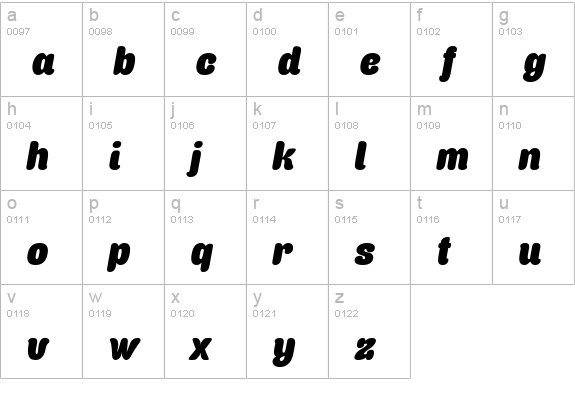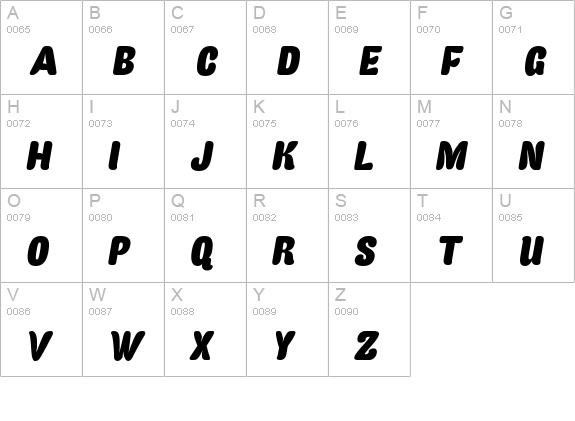
Caprica Sans It Personal Use Font Details
Caprica Sans It Personal Use is a versatile and stylish font that is perfect for adding a touch of elegance and sophistication to any creative project. With its clean lines and modern design, this font is sure to make a statement. Whether you're designing a logo, creating a website, or working on a branding project, Caprica Sans It Personal Use will elevate your work to the next level. Its sleek and professional look is suitable for a wide range of applications, from business cards to social media graphics. One of the best things about Caprica Sans It Personal Use is that it is free. Yes, you read that right - this amazing font is freely available to download at FontsMarket.com. So you can enjoy the benefits of this high-quality font without breaking the bank. Not only is Caprica Sans It Personal Use free, but it is also incredibly easy to use. With its user-friendly interface and extensive character set, you'll have no trouble finding the perfect letters and symbols to bring your designs to life. Whether you're a beginner or a seasoned professional, this font will quickly become your go-to choice. Caprica Sans It Personal Use is a font that truly stands out from the crowd. Its unique and eye-catching design will capture the attention of anyone who sees it, leaving a lasting impression. So why settle for ordinary fonts when you can have something extraordinary? Download Caprica Sans It Personal Use for free at FontsMarket.com and unlock a world of possibilities. Whether you're designing for personal or commercial use, this font will help you create stunning and memorable designs that are sure to impress. So don't wait - take your creativity to new heights with Caprica Sans It Personal Use.